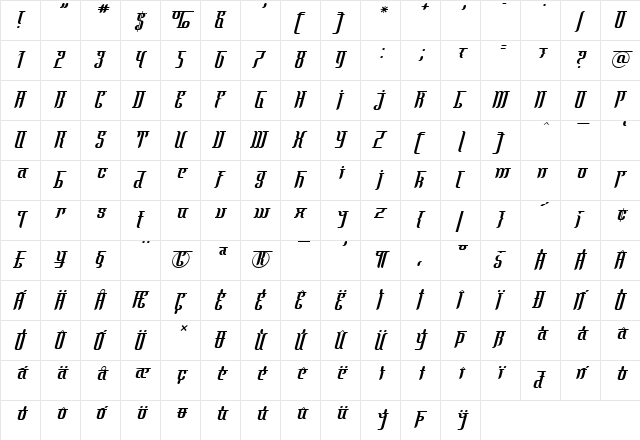
Mata Hari Exotique
| Foundry | Max Kisman |
| Designer | max Kisman |
Design Context for Mata Hari Typeface
Mata Hari is a composed and adaptable typeface that performs quietly and consistently across a wide range of design contexts.